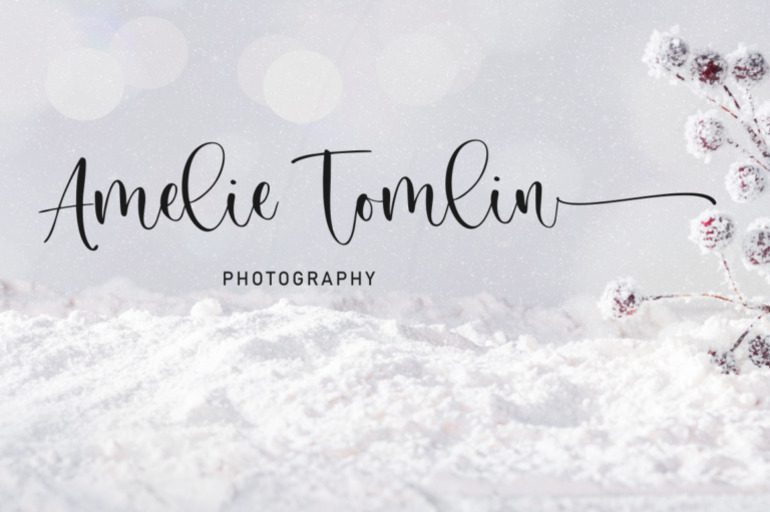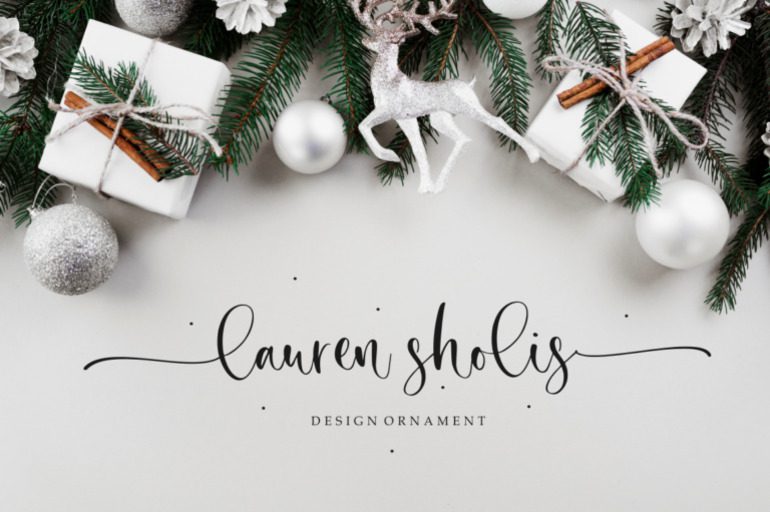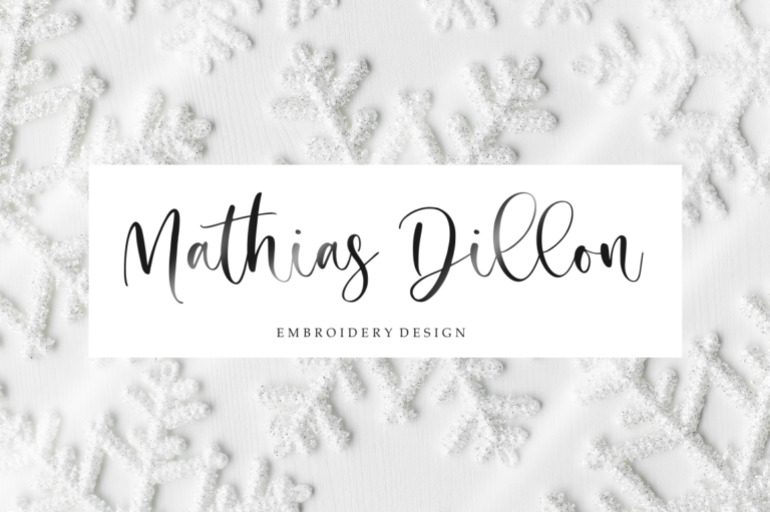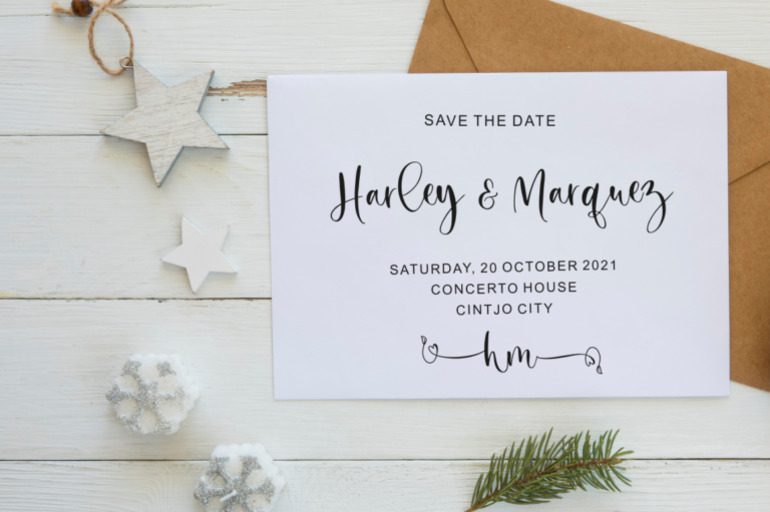
Secret Winter Font
Secret Winter is a beautiful calligraphy font perfect for crafting, branding, invitation, stationery, wedding designs, social media posts, advertisements, product packaging, product designs, label, photography, watermark, special events, or anything. Secret Winter comes with a full set of uppercase and lowercase letters, swash alternates, ligatures, multilingual symbols, numerals, and punctuation.